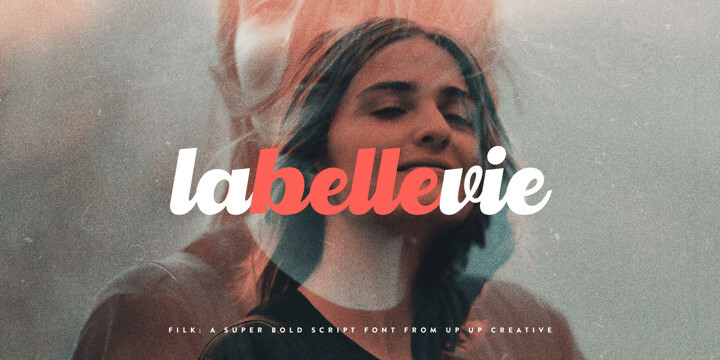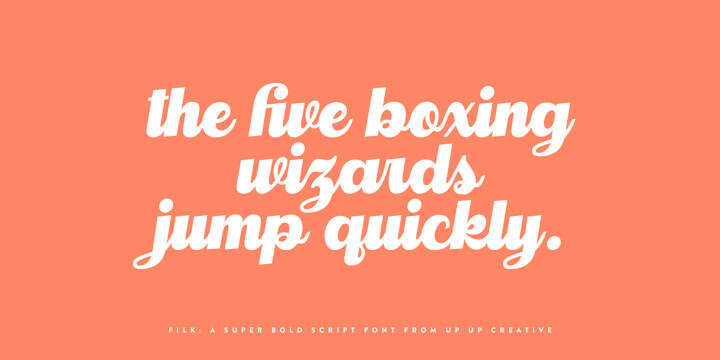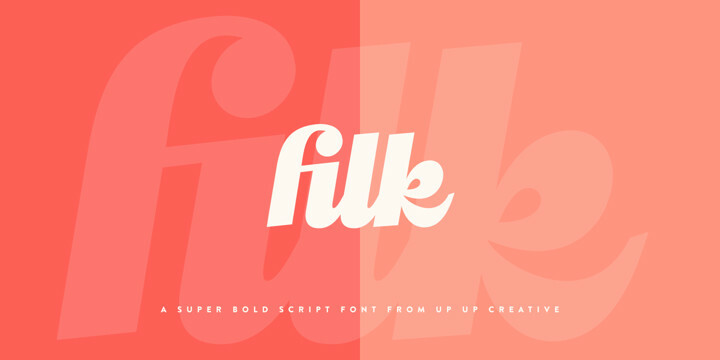
Filk Font
Filk FontFilk is a super bold, all-lowercase script font with gorgeous curves and thick downstrokes. Filk is perfect for branding and editorial projects and dreams of being used on billboards, in magazines, and in movie titles.
Filk includes approximately 540 glyphs, including 39 standard and discretionary ligatures.
OpenType features include a a stylistic set, a bunch of character variants, initial and final forms for letters that need them, and multilingual support (including multiple currency symbols). The OpenType features can be very easily accessed by using OpenType-savvy programs such as Adobe Illustrator and Adobe InDesign.